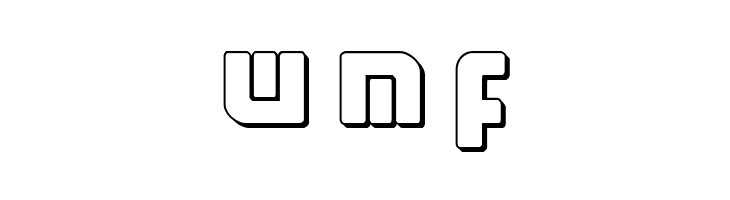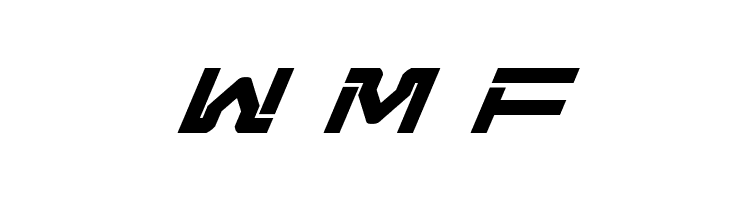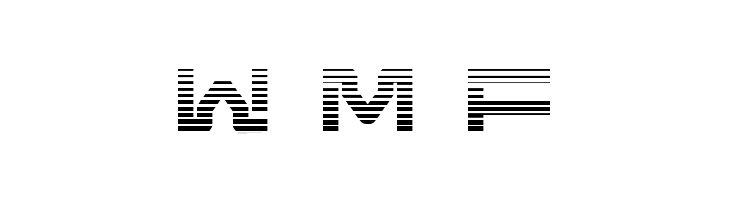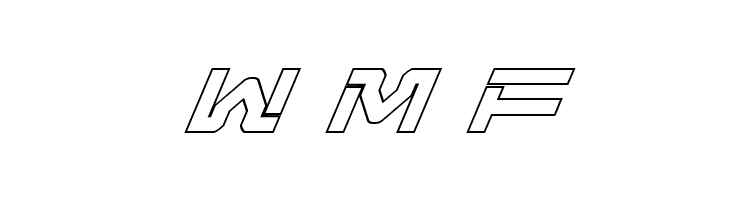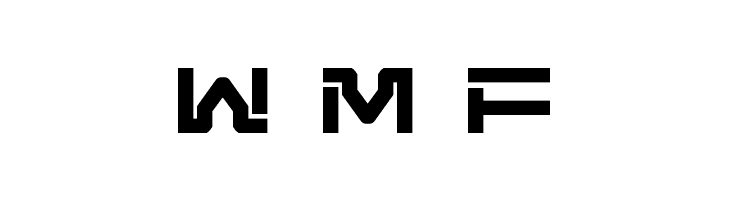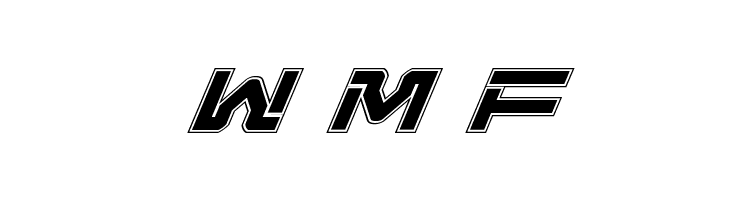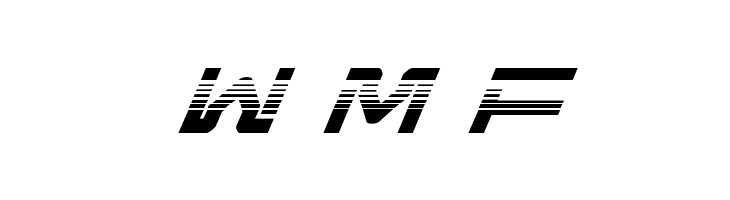
• Exoplanet 3D Regular
A futuristic, geometric font with a 3D outline effect.
• Exoplanet Regular
A bold, geometric font with a futuristic and cohesive design.
• United Planets Semi-Bold Italic
A futuristic, angular font with a bold, italic style and consistent stroke width.
• United Planets Gradient
A futuristic font with a gradient line pattern, perfect for tech and digital designs.
• United Planets Outline Italic
A futuristic, italicized outline font with geometric precision.
• United Planets Condensed
A futuristic, geometric font with bold, angular letterforms and a condensed width.
• United Planets Condensed Italic
A futuristic, angular, and italicized font with a condensed style.
• United Planets Regular
A futuristic, geometric font with bold, angular letterforms and consistent stroke width.
• United Planets Academy Italic
A bold, italicized font with a futuristic and geometric design.
• United Planets Halftone Italic
A futuristic, italicized font with a halftone effect, ideal for modern and tech-themed projects.